If you’re looking for home decor design ideas using stylish ligature typography, you’re not alone. Typography has become one of the biggest trends in modern interior design, transforming ordinary spaces into visually engaging environments. From custom wall art and decorative signs to personalized room accents, stylish ligature fonts help homeowners create spaces that feel elegant, welcoming, and uniquely personal.
Today, typography is no longer limited to books, websites, or branding projects. It has become an important design element within homes, cafes, boutiques, and creative workspaces. By using decorative ligature fonts, designers can add personality and sophistication while maintaining a clean and modern aesthetic.
Whether you’re decorating a living room, bedroom, home office, or creative studio, ligature typography offers endless possibilities for creating memorable interior spaces.
Why Typography Has Become Popular in Home Decor
Interior design trends have shifted toward personalization. Homeowners increasingly want spaces that reflect their personality, values, and lifestyle.
Typography provides a simple yet powerful way to achieve this.
Unlike traditional artwork, typographic decor combines visual appeal with meaningful messages. A beautifully designed quote, family name, or inspirational phrase can instantly become the focal point of a room.
The Rise of Personalized Interiors
Modern homeowners appreciate decor that feels custom-made.
Typography-based decor allows for:
- Personalized wall art
- Custom family signs
- Motivational quote displays
- Decorative room labels
- Monogram artwork
- Business-inspired home office decor
Stylish ligature fonts elevate these applications by adding elegance and artistic detail.
The Influence of Social Media
Platforms like Instagram, Pinterest, and TikTok have accelerated the popularity of typography-focused interiors.
Many trending interior styles feature:
- Minimal typography posters
- Elegant wall quotes
- Custom acrylic signs
- Decorative wooden lettering
- Modern typography canvases
As a result, stylish ligature typography has become a favorite design choice among interior designers and DIY decorators alike.
What Makes Ligature Typography Special?
Ligatures occur when two or more letters connect to form a single harmonious character.
These subtle connections create typography that feels smoother, more sophisticated, and more artistic than standard lettering.
Visual Elegance
One of the biggest advantages of ligature fonts is their refined appearance.
Connected letterforms create:
- Better visual flow
- More luxurious aesthetics
- Unique character combinations
- Stronger visual identity
This makes them especially suitable for decorative applications where appearance matters as much as readability.
Timeless Appeal
Unlike trendy graphic elements that quickly become outdated, elegant typography often remains relevant for years.
A well-designed ligature font can complement multiple interior styles, including:
- Modern minimalist
- Scandinavian
- Contemporary
- Transitional
- Farmhouse
- Luxury interiors
Home Decor Design Ideas Using Ligature Typography
There are many creative ways to incorporate ligature typography into interior design.
1. Custom Wall Art
Typography wall art remains one of the most popular home decor applications.
Popular options include:
- Inspirational quotes
- Family mottos
- Personal affirmations
- Meaningful words
- Travel memories
Using a stylish ligature font instantly makes these pieces feel more premium and professionally designed.
2. Personalized Family Name Signs
Custom family signs have become increasingly popular in modern homes.
A beautifully crafted family name displayed in an elegant ligature font creates:
- Warmth
- Personality
- Sophistication
These signs work particularly well in entryways, dining rooms, and living spaces.
3. Home Office Decor
As remote work becomes more common, homeowners invest more in workspace aesthetics.
Typography-based decor can enhance productivity and creativity through:
- Motivational quotes
- Business values
- Personal goals
- Brand-inspired artwork
Elegant ligature typography adds professionalism without making the space feel corporate.
4. Bedroom Accent Pieces
Bedrooms benefit from typography that creates a calm and personal atmosphere.
Popular bedroom typography includes:
- Love-themed quotes
- Personalized names
- Positive affirmations
- Minimal decorative phrases
The flowing connections found in ligature fonts contribute to a softer and more inviting aesthetic.
Interior Styles That Work Well with Ligature Fonts
Not every typography style fits every interior theme. Fortunately, ligature fonts are highly versatile.
Modern Minimalist Interiors
Minimalist interiors focus on simplicity and clean lines.
Ligature typography introduces subtle visual interest without overwhelming the space.
Scandinavian Design
Scandinavian interiors emphasize warmth, functionality, and simplicity.
Elegant typography complements natural materials such as:
- Wood
- Linen
- Stone
- Neutral textiles
Luxury Contemporary Spaces
Luxury interiors often rely on sophisticated details.
Decorative ligature fonts help create premium focal points through:
- Metal wall signs
- Acrylic lettering
- Framed typography art
- Custom branding-style decor
Recommended Fonts for Home Decor Projects
If you’re searching for stylish ligature fonts suitable for home decor applications, consider the following options.
Gillty
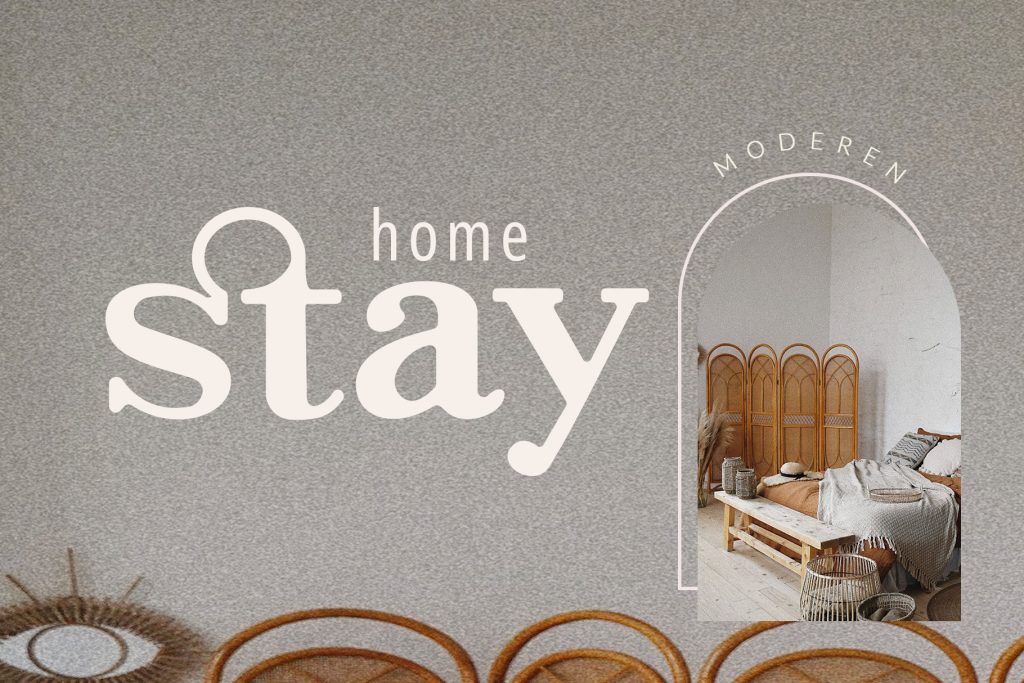
Gillty offers elegant ligature combinations that work beautifully for personalized signs, decorative wall art, and modern interior branding.
Kefhila Serif
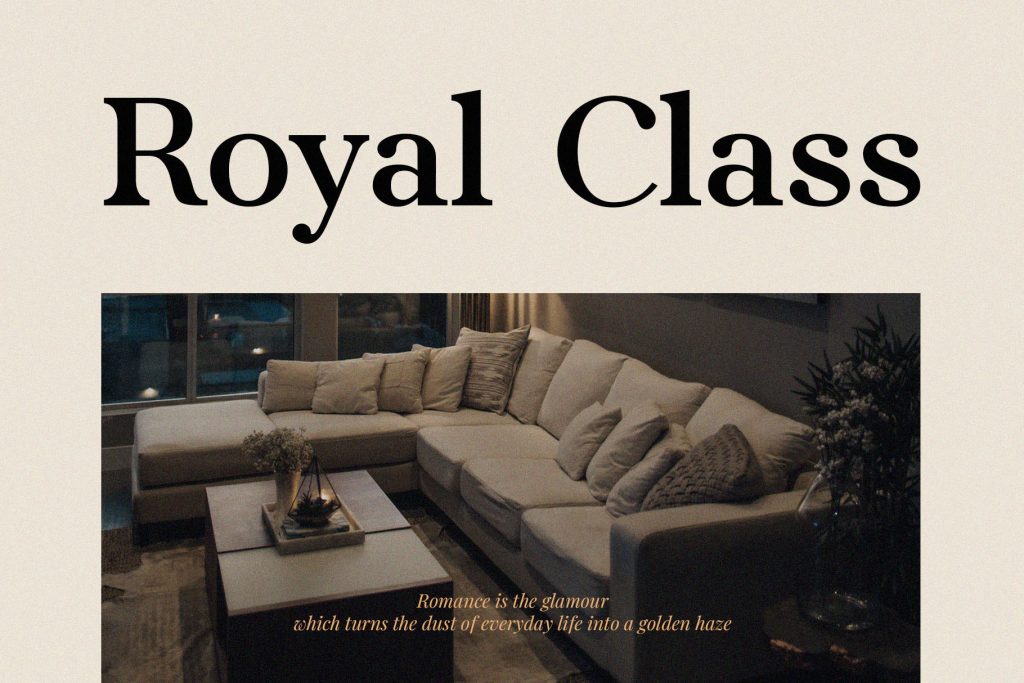
Kefhila Serif combines classic serif elegance with sophisticated ligatures, making it ideal for luxury-inspired interiors and timeless home decor projects.
The Braga
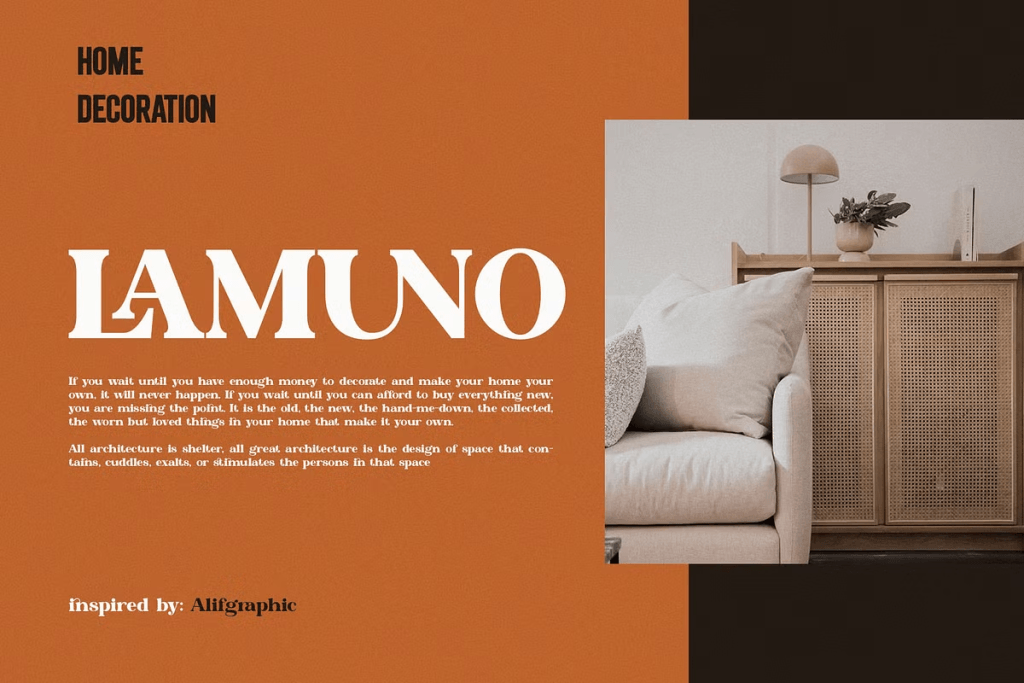
The Braga delivers stylish typography with strong decorative character, perfect for statement wall art and premium typography displays.
Conclusion
Using home decor design ideas with stylish ligature typography is one of the easiest ways to add personality, elegance, and visual sophistication to interior spaces.
From custom wall art and family signs to home office decor and luxury accent pieces, ligature fonts provide a timeless design solution that works across many interior styles. Their flowing letter connections create visual harmony while adding a refined, handcrafted feel that standard typography often lacks.
Whether you’re decorating your own home or creating products for clients, stylish ligature typography can transform ordinary spaces into memorable environments. Fonts like Gillty, Kefhila Serif, and The Braga offer beautiful options for creating typography-focused decor that feels both modern and timeless.